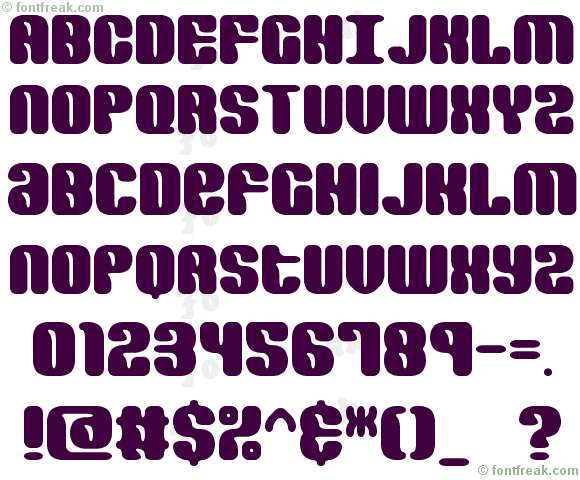
Revert Round BRK
Revert BRK
Revert BRK is a striking display font designed by Ænigma Fonts, characterized by its bold, geometric forms and a unique sense of personality. As a freeware typeface, it invites creativity and accessibility for a wide range of projects. The font features a distinctive stroke weight that emphasizes its blocky, rounded characters, offering a modern yet slightly playful aesthetic. The spacing between letters is carefully balanced, ensuring readability while maintaining an engaging visual flow. This font exudes an air of confidence, making it perfect for attention-grabbing designs.
Ideal applications for the Revert BRK font include wedding invitations that seek a contemporary flair, movie posters where bold typography is essential for capturing audience interest, and restaurant menus that aim to stand out with a modern twist. Additionally, it can be effectively utilized in social media graphics, providing an eye-catching element that resonates with digital audiences. The font is particularly appealing to graphic designers and content creators looking for a unique typeface that balances style and functionality.
The target audience for Revert BRK encompasses both professional graphic designers and small business owners who want to make a memorable impression. Its artistic yet approachable nature makes it suitable for various design projects, ensuring that it can be applied across multiple platforms and mediums.
What sets the Revert BRK font apart is its ability to blend boldness with charm, creating a versatile typeface that enhances any design narrative. With its free availability, the Revert BRK font free download offers an exciting opportunity for creatives to explore innovative typography without financial constraints, inviting users to experiment and express their unique visions through impactful design.